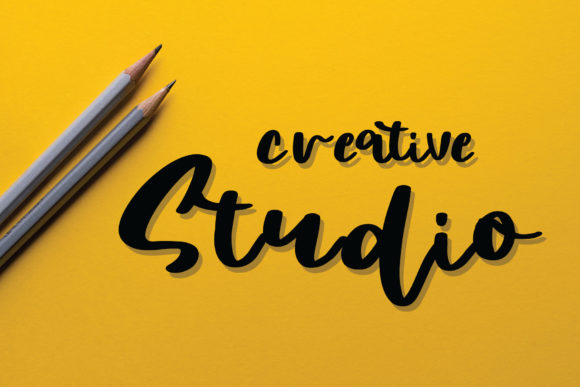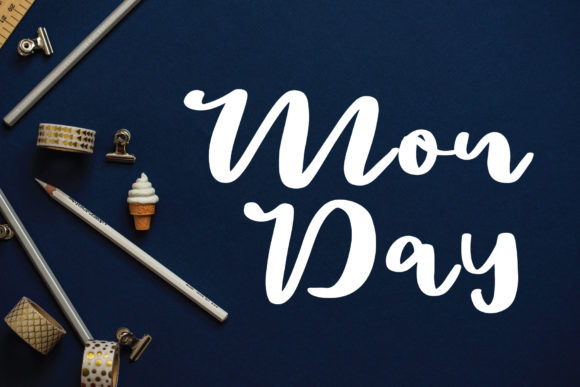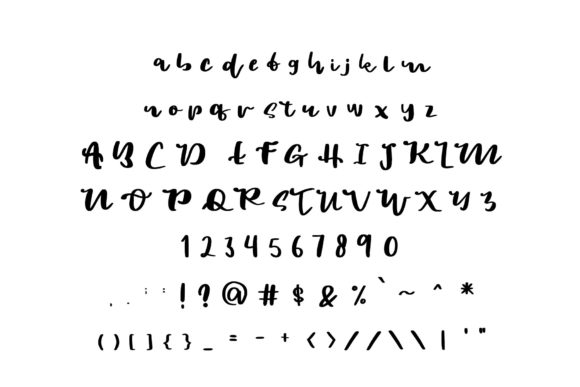
HomeScript FontsSaturday Font Script Fonts Saturday Font FacebookXPinterestWhatsApp Saturday Font Poster 2 Saturday Font Poster 3 Saturday Font Poster 4 About Saturday Font Saturday is an equally authentic and vibrant handwritten font that will take any design project to the next level. DOWNLOAD NOW People also explored Bible Font Growpia Font Claudhi and Jhelio Font Westyler Font Sketchbook Font Sweetie Font Nifty Neato Font Calligraphy Script Font Flapjacks Font 328 0 TagsSaturday Font Previous articleWishing Message FontNext articleAlbertons Script Font LEAVE A REPLY Cancel reply Comment: Please enter your comment! Name:* Please enter your name here Email:* You have entered an incorrect email address! Please enter your email address here Website: Save my name, email, and website in this browser for the next time I comment. Personal Use Free Konexio Personal Use Free Read more about this font Strasua Personal Use Free Read more about this font Loving Personal Use Free Read more about this font Pouline Personal Use Free Read more about this font BLOG Transform Your Website: Elevate Your Typography with 7 Best Web Font Generators Are you ready to transform your website's typography from ordinary to extraordinary? Great! Today, we're diving into the world of web font generators, which... The 10 Best Handwriting Fonts to Add Personality to Your Designs Where to Buy American Fonts Online in 2024 How to Install and Use Fonts on Windows, macOS, and Web Projects